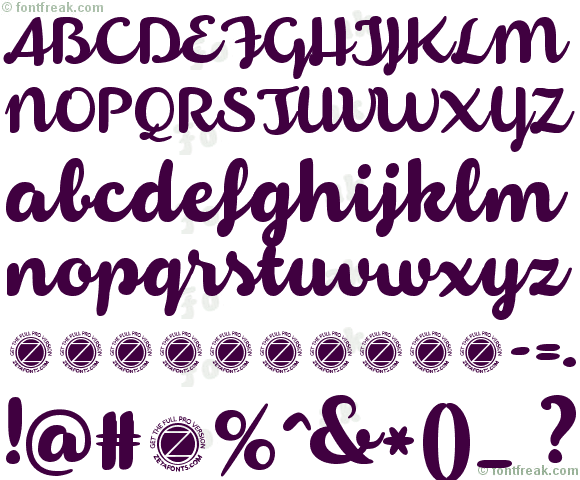
Armonioso
Armonioso is a beautifully crafted script font designed by the renowned kmzero font foundry. This unique typeface falls into the script category, characterized by its elegant, flowing letterforms that convey a sense of warmth and sophistication. With a medium stroke weight and subtle contrast, Armonioso offers a balanced appearance that makes it versatile for various design applications. The font features slightly condensed spacing, which enhances legibility while maintaining its artistic flair.
Best suited for creative endeavors, Armonioso shines in wedding invitations, where its romantic curves set a perfect tone for special occasions. It also works wonderfully for movie posters, adding a touch of elegance that captures the viewer's attention. Restaurant menus can benefit from its inviting aesthetic, making dishes sound more appealing. Additionally, small business branding, such as logos and promotional materials, can leverage the charm of Armonioso to establish a memorable identity. The font is ideal for graphic designers, small business owners, and content creators seeking to elevate their projects with a distinctive touch.
What truly sets Armonioso apart is its harmonious blend of artistry and functionality. The fluidity of its characters allows for dynamic compositions, making it suitable for both headlines and body text. This font brings a sense of personality and style to any design, ensuring that it resonates with audiences. For those looking to enhance their creative projects, the Armonioso font free download offers an opportunity to incorporate this elegant typeface without any cost. Its unique character and versatility make it a standout choice for anyone seeking to make a lasting impression.